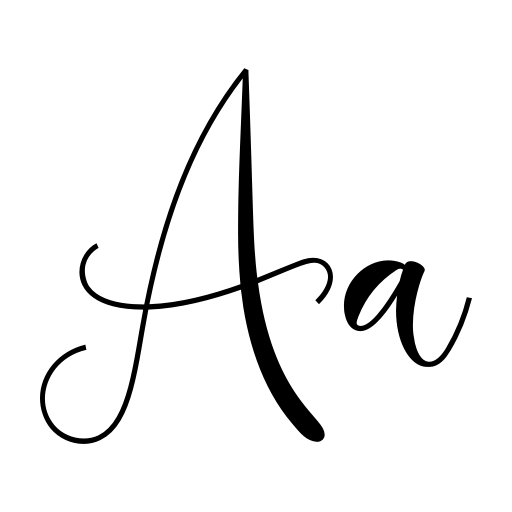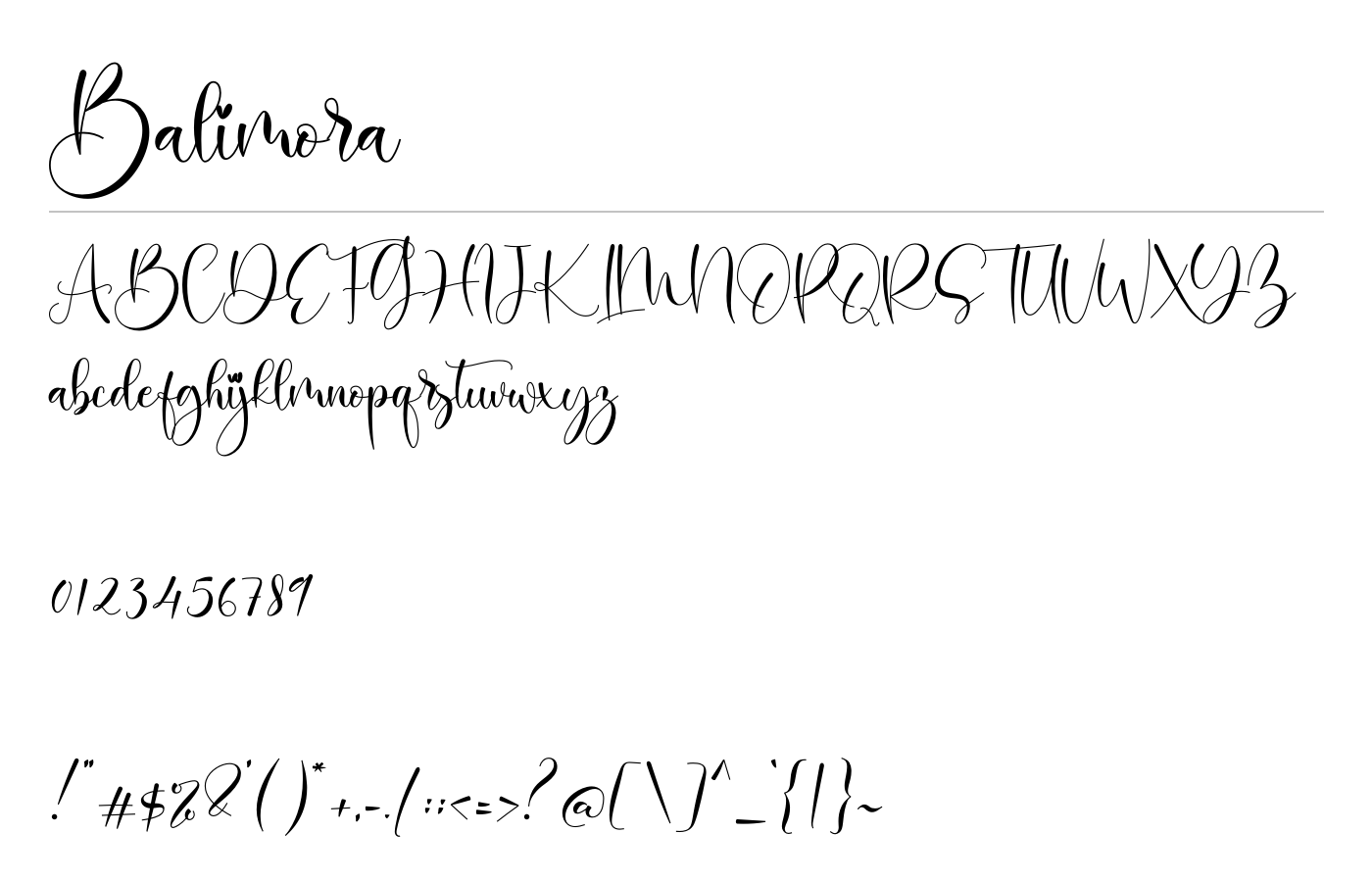
Balimora is a delicate script font characterized by its elegant, flowing letterforms and playful loops, featuring varying stroke weights that add a hand-lettered charm. Its slender, tall characters with graceful curves make it perfect for stylish invitations, branding, and decorative headlines that seek a personal and artistic touch. This font conveys a sense of creativity and sophistication while maintaining a light and airy feel.
Balimora Font
About Balimora Font